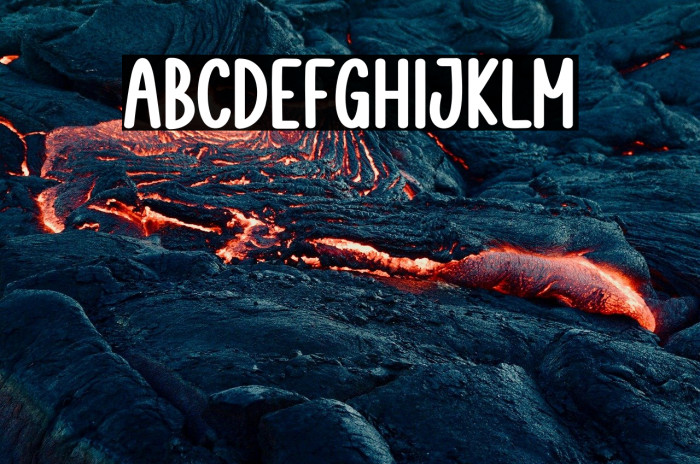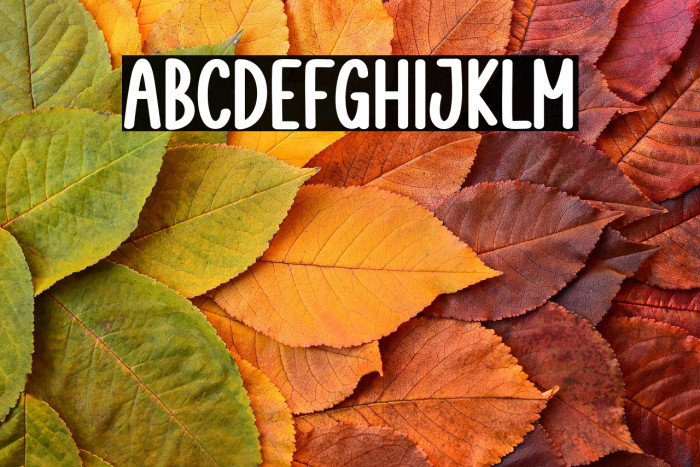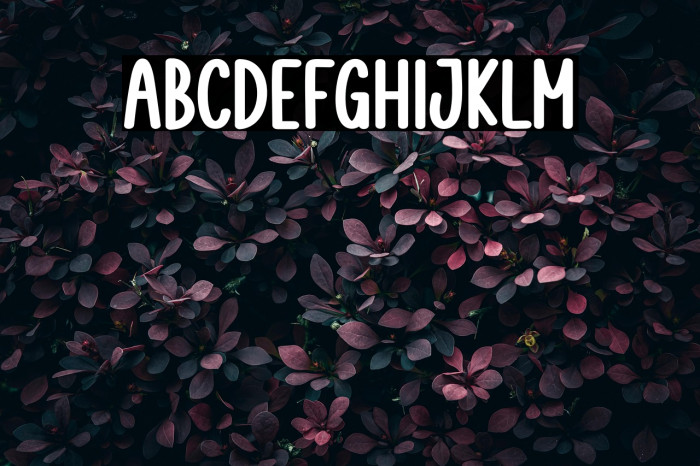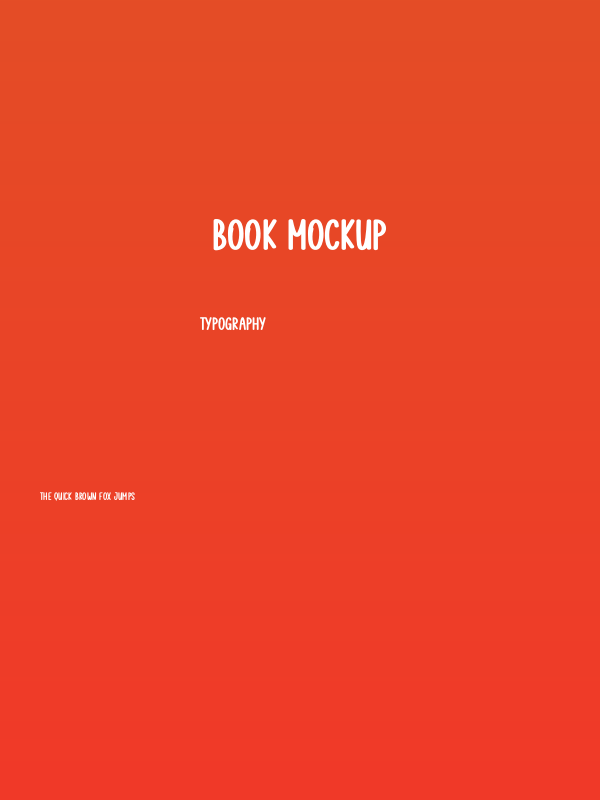
Book Mockup Font
Book Mockup Description
A playful, rounded sans-serif font with uniform stroke width, featuring slightly condensed letterforms and a friendly, informal appearance. The characters are upright with no visible slant, and the spacing between letters is moderate, ensuring good readability.
| Overall Style | Playful, Informal, Modern |
| Use Case | Headlines, Posters, Branding, ChildrenΓ’β¬β’s materials |
| Proposed Projects | ChildrenΓ’β¬β’s books, posters, greeting cards, branding for playful or informal products, social media graphics. |